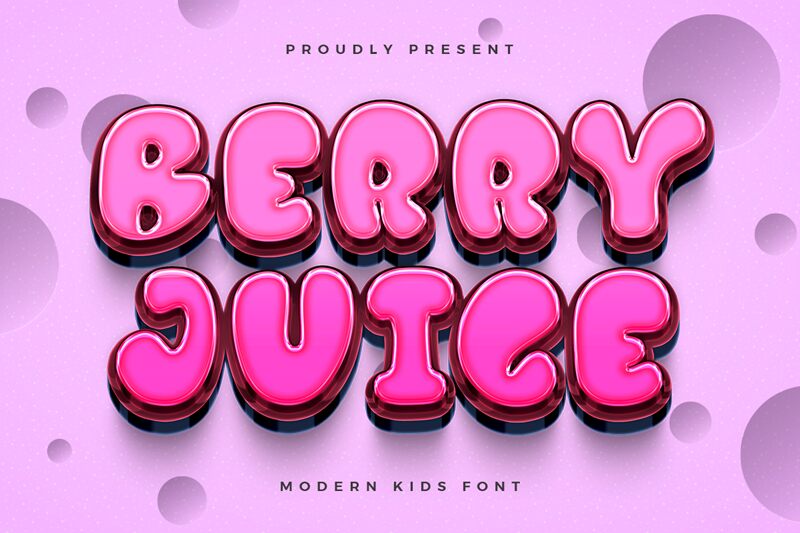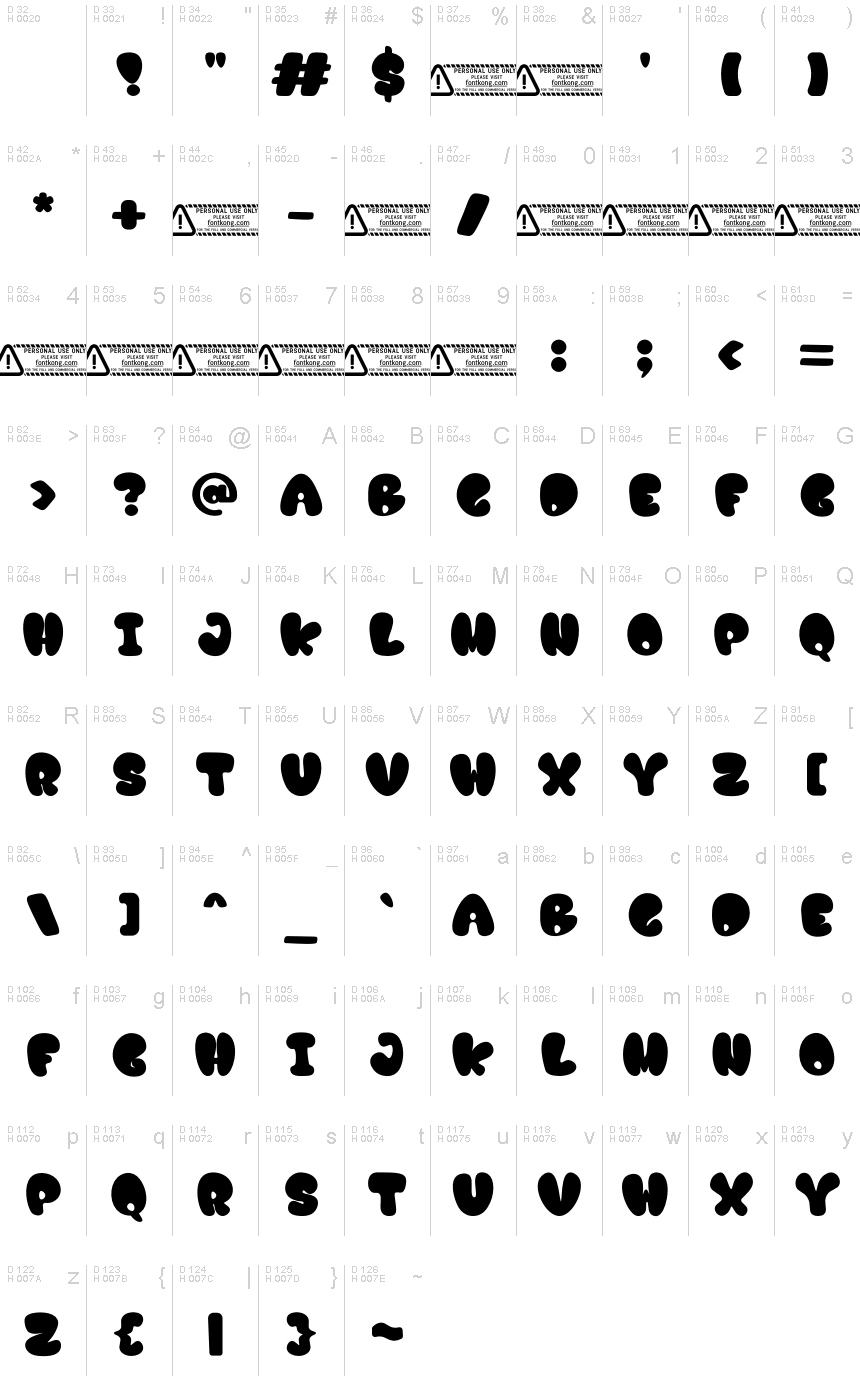
Berry Juice font, crafted by Kong Font, embodies a playful, cartoonish charm that instantly captures attention. Its bold presence exudes a sense of joy and exuberance, making it perfect for any design aiming to create a lively atmosphere. The characters seem to bounce off the page, showcasing an engaging personality that draws in viewers with its whimsical curves and slightly exaggerated forms.
Ideal for children's products, branding for playful enterprises, or vibrant event invitations, Berry Juice enhances visual storytelling with its dynamic style. Its unforgettable aesthetic ensures that it stands out whether used in digital media or print. This font isn’t just a typeface; it's an invitation to engage and celebrate creativity in design contexts where fun is paramount.